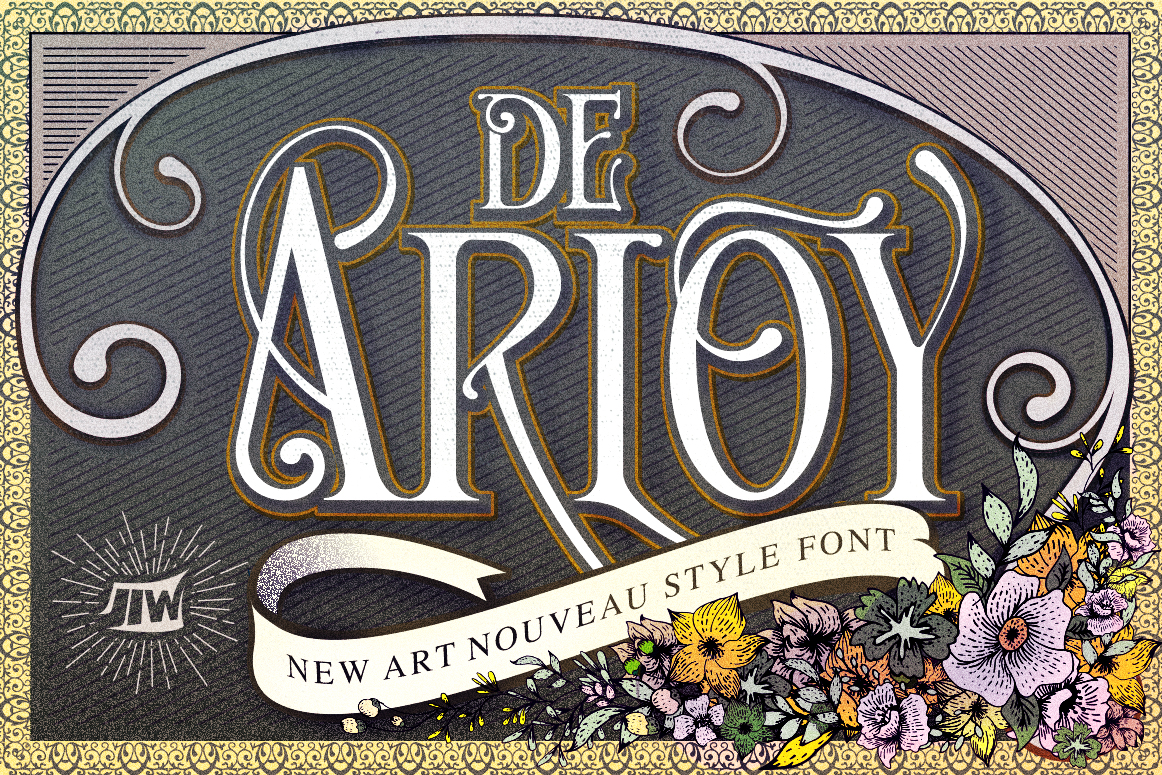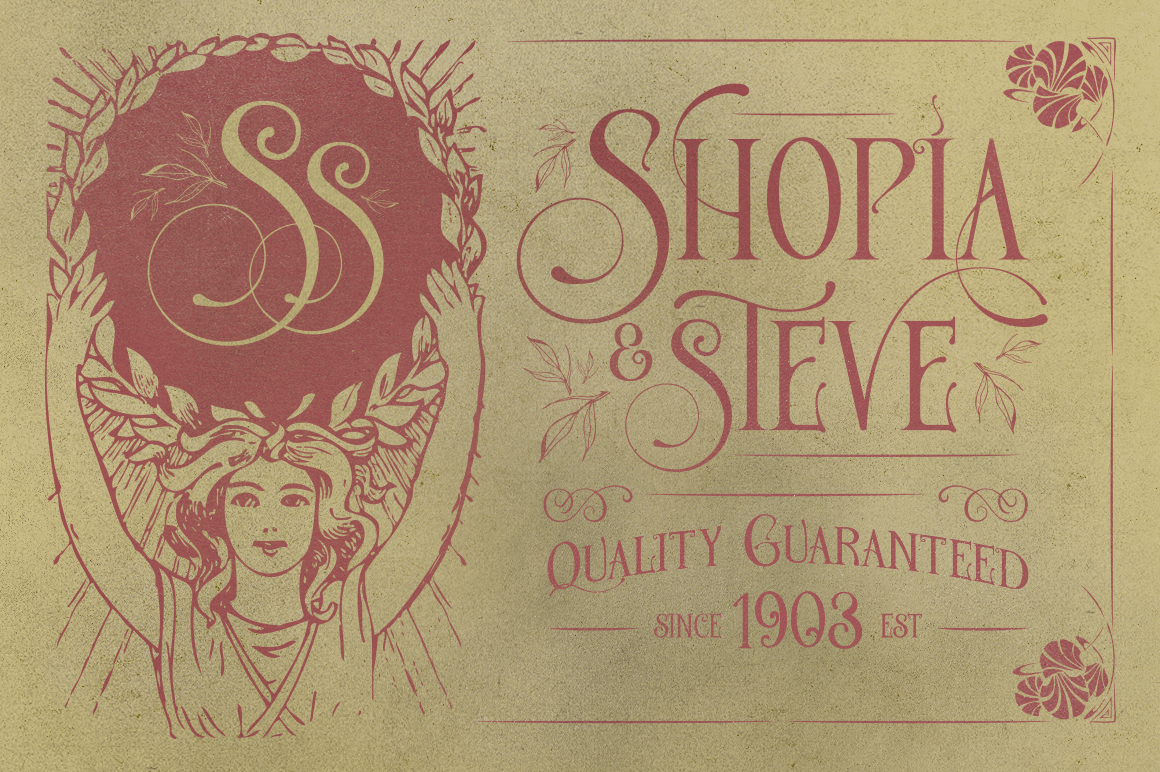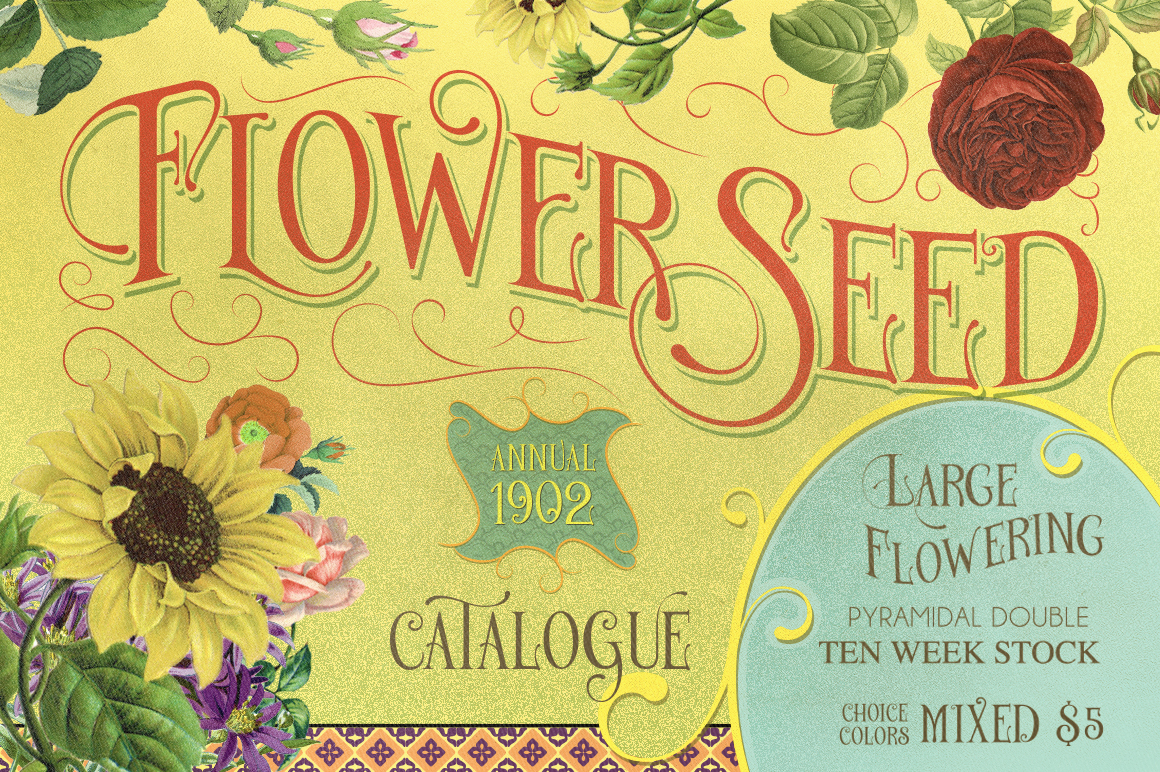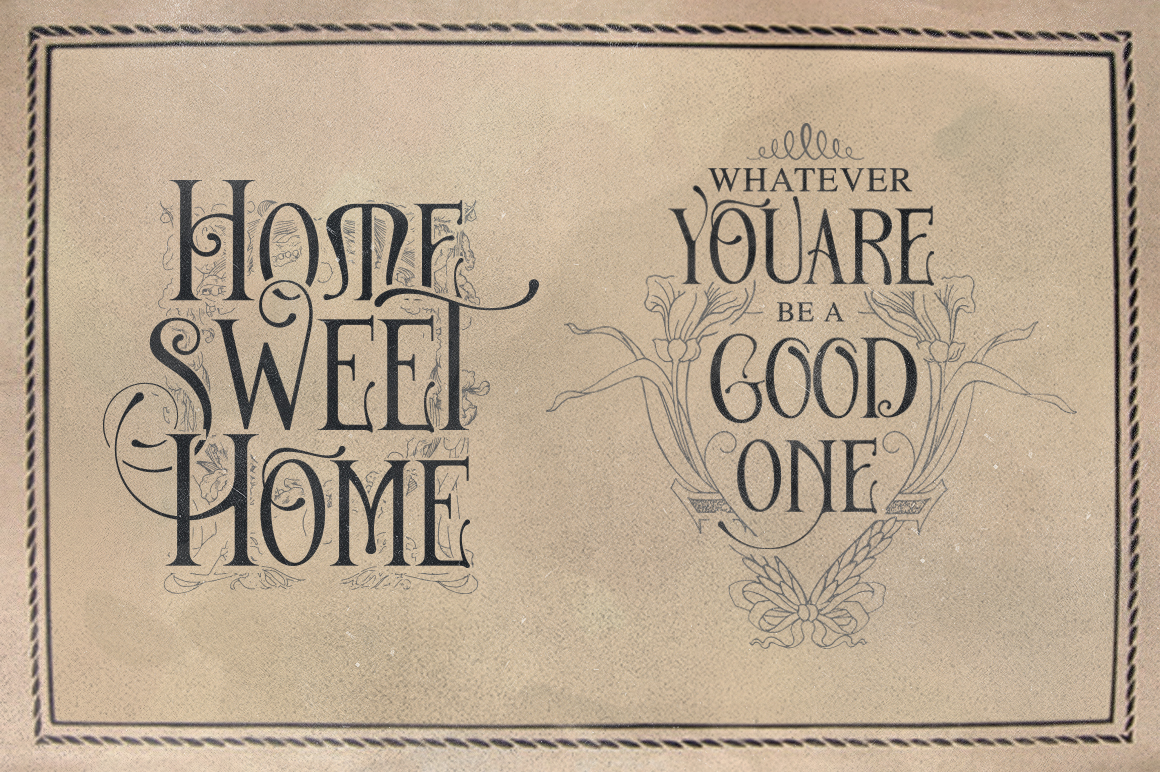
De Arloy Font: Art Nouveau Typography for Elegant Branding
About the De Arloy Font
Unleash your creativity with De Arloy Font, a versatile font perfect for a wide range of applications. De Arloy is a gorgeous typeface inspired by art nouveau, a style marked by the years from 1890-1910 (turn of the decade). Detailed and ornamental, De Arloy encompasses the spirit of that particular and wondrous time in the art world.
De Arloy’s ornate details make it ideal for headlines, logos, and short text blocks in branding materials or posters where its decorative qualities can shine. It’s less suitable for body text or UI elements; its high level of detail would hinder readability in extended passages.
The font possesses an elegant and slightly whimsical personality, reflecting the Art Nouveau era’s blend of sophistication and playful ornamentation. This makes it a strong choice for brands focused on luxury goods, beauty products, or artistic endeavors.
To complement De Arloy, consider pairing it with a clean sans-serif like Lato for body text or a geometric sans-serif like Futura for a more modern contrast. A simple serif typeface such as Garamond could provide a classic counterpoint to its decorative flourishes.
De Arloy Font Usage Examples
De Arloy Font Example